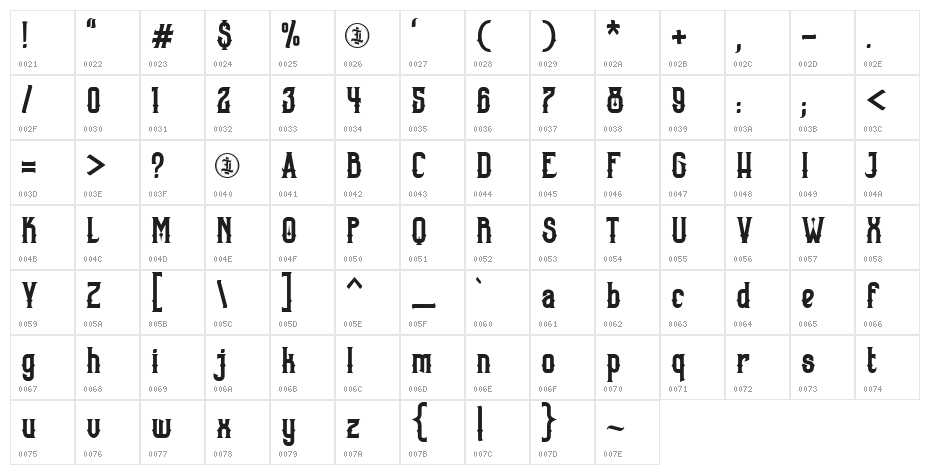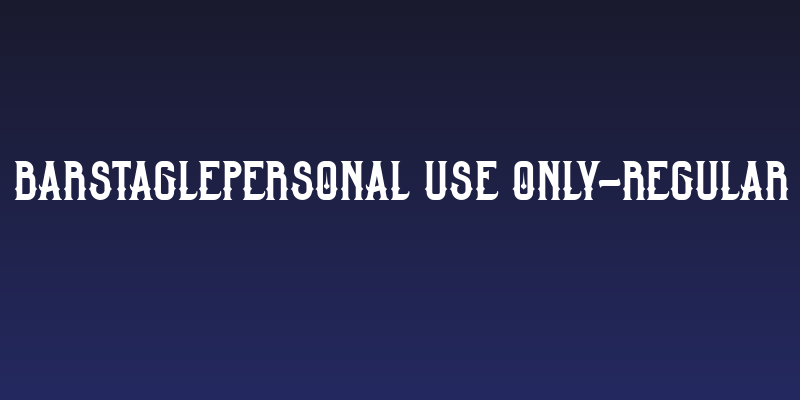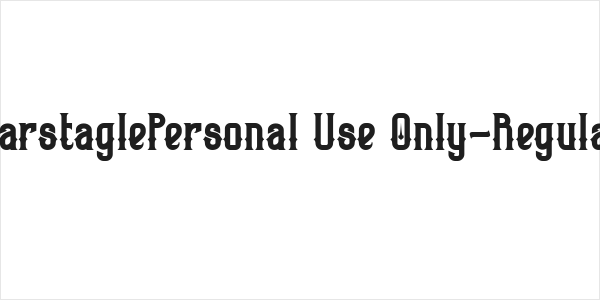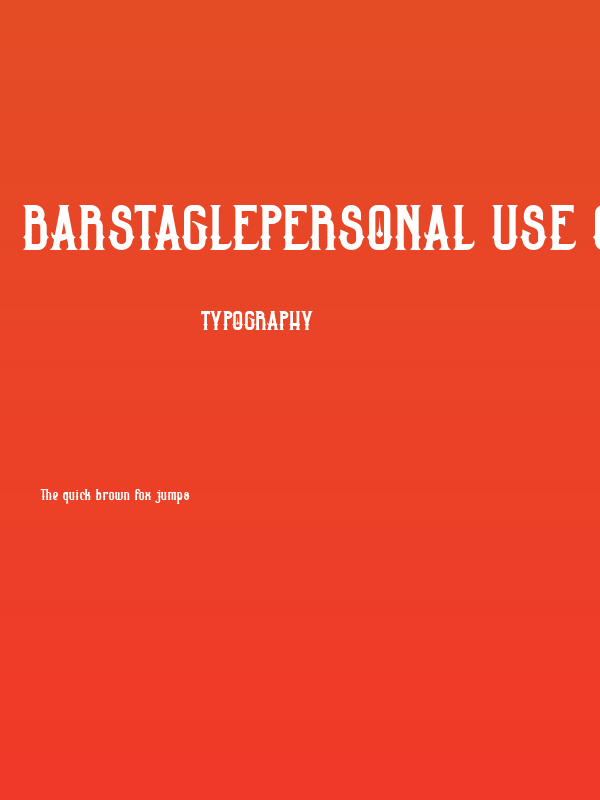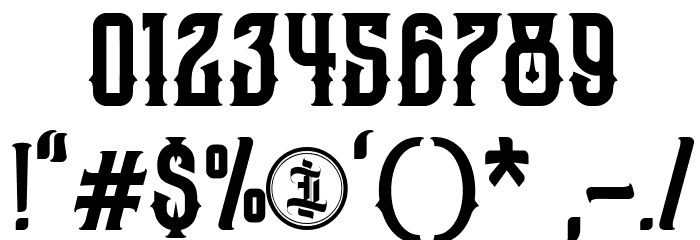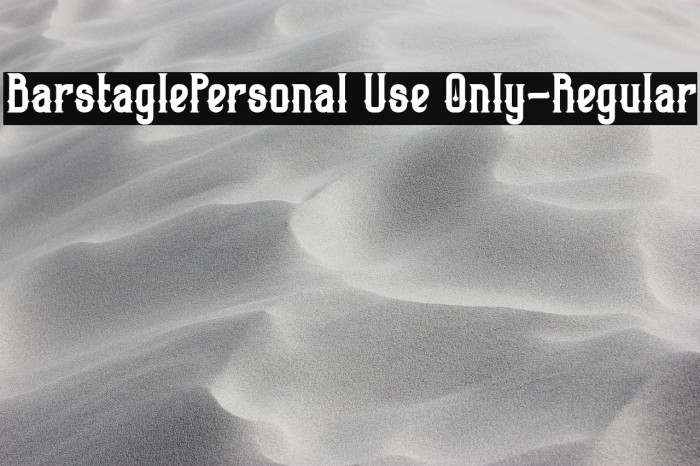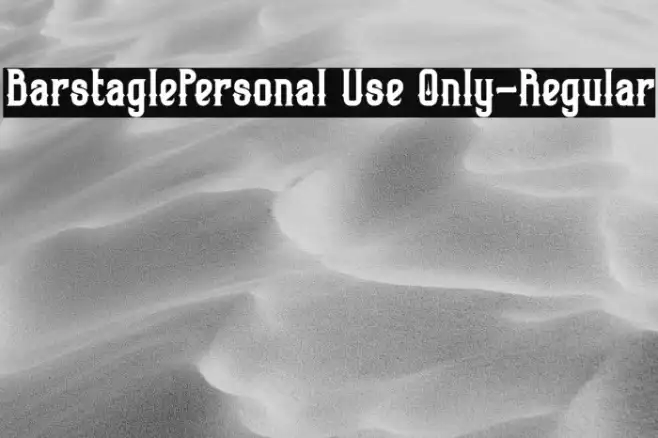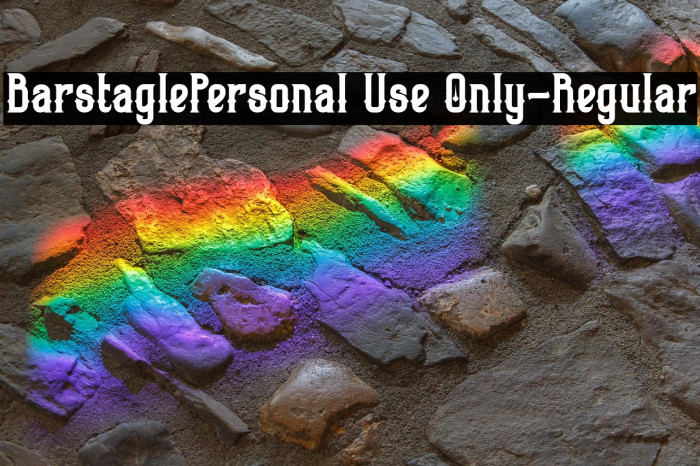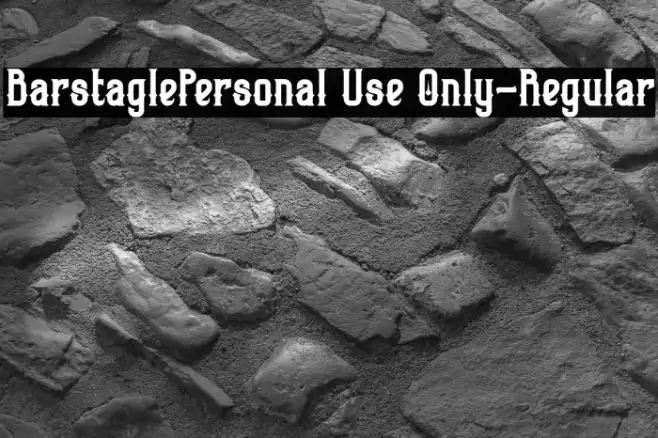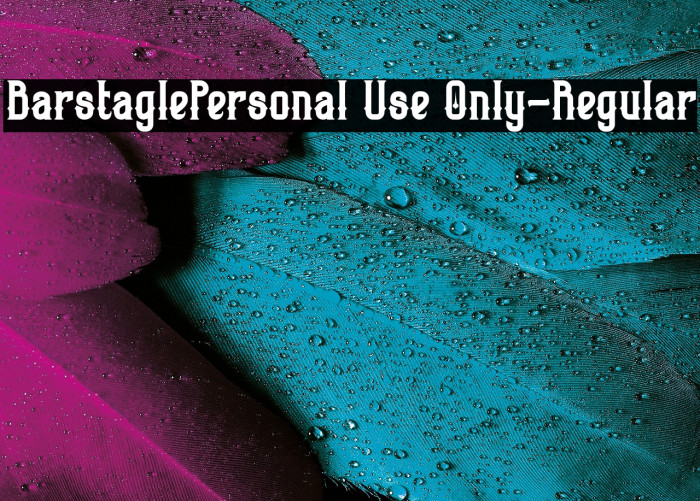
BarstaglePersonal Use Only-Regular Font
BarstaglePersonal Use Only-Regular Description
This font exhibits a bold and decorative style with a distinct vintage flair. The characters are designed with sharp, angular serifs and a unique, ornate structure that gives them a striking appearance. The uppercase letters are particularly elaborate, featuring intricate details that enhance their visual impact. The lowercase letters maintain a consistent style, offering a cohesive look across the typeface. Numbers and special characters are crafted with the same attention to detail, ensuring uniformity throughout. The font's overall aesthetic is reminiscent of classic Western or circus posters, making it ideal for projects that require a touch of nostalgia and boldness.